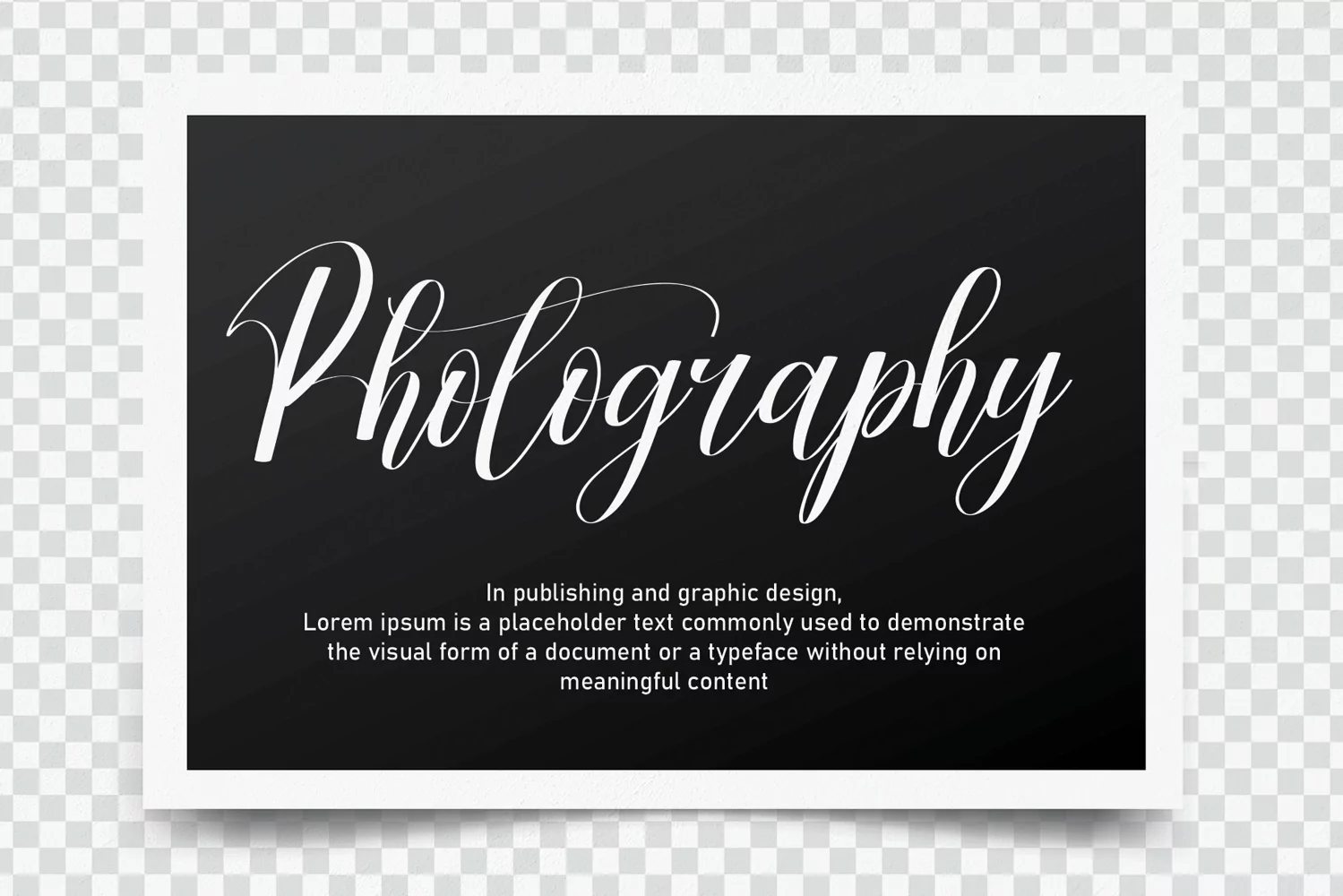
California | Script font
California Font is a popular and professional script font. It is Modern and elegant, this typeface is made of beautiful, creative strokes.